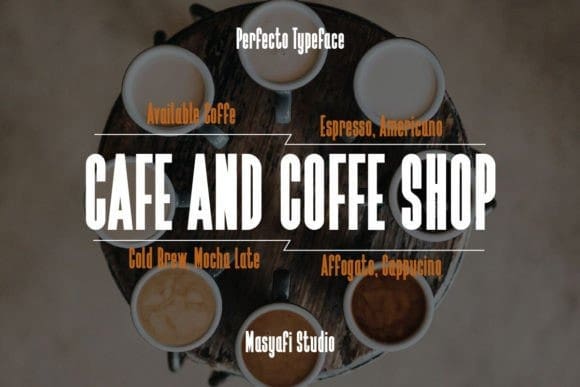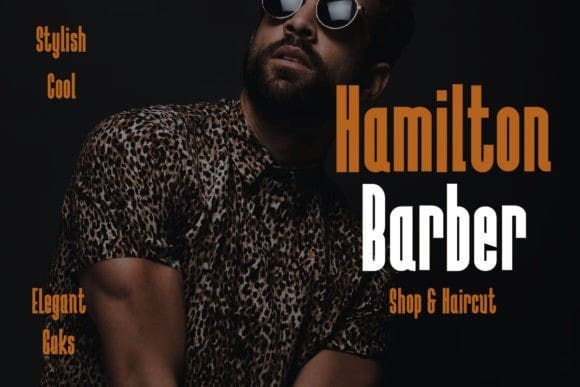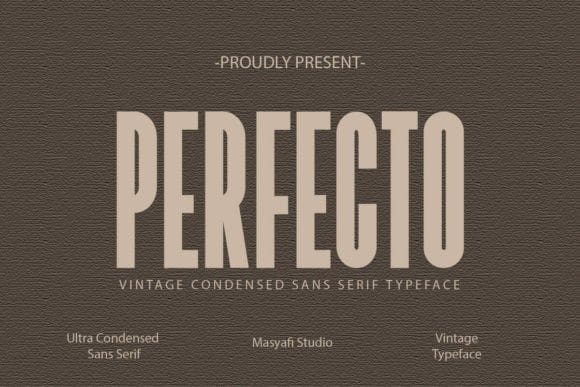
Perfecto Font
Perfecto Font – Sans Serif Typeface with vintage, condensed, and manly styles. This font is cool for headlines, overlays, t-shirts, tote bags, etc.